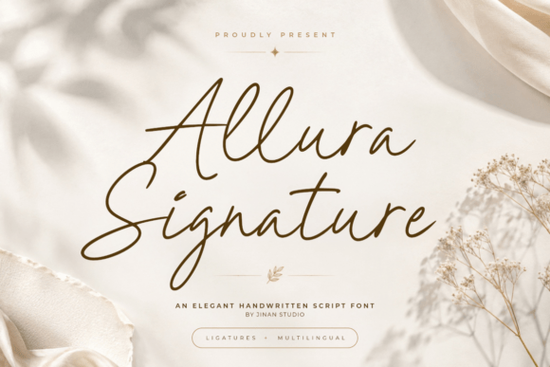
Finding the right script font for a branding project or wedding invitation can be tricky. You want something that looks natural and elegant without being hard to read. Allura Signature Font is a modern elegant handwritten script designed to bring sophistication and a refined hand-lettered feel to logos, packaging, social media graphics, and luxury branding. Its smooth flowing strokes and authentic signature-style details make it a strong choice for designers and small business owners who want polished typography that still feels personal.
What makes a handwritten script font look professional?
A professional script font needs more than just pretty letterforms. It should have consistent stroke weight, clean spacing, and natural connections between letters so the text flows without awkward breaks. Allura Signature Font nails this balance the graceful curves give it an organic handwritten quality, while the clean contemporary finish keeps everything legible at different sizes.
Compared to more casual options like Sweet Apricot, which leans playful and relaxed, Allura Signature sits firmly in the elegant and refined space. That makes it a better fit for projects where you need a polished, upscale tone think luxury brand logos, fashion editorials, or high-end packaging.
Where does this font work best?
This font is versatile enough for a wide range of creative projects. Here are some of the most popular uses:
- Wedding invitations and stationery The flowing script adds a romantic, timeless quality to save-the-dates, RSVP cards, and table settings.
- Logo design Works well for boutique brands, beauty products, photographers, and lifestyle businesses that want a signature-style wordmark.
- Social media templates Clean enough to stay readable at smaller sizes on Instagram, Pinterest, and stories.
- Packaging and labels Adds an artisan, premium feel to product labels, especially in the beauty, skincare, and food space.
- Business cards and stationery A great choice for freelancers and creatives who want their name to stand out.
- Quotes and photography overlays The elegant strokes pair nicely with photography for overlay text on prints or digital content.
How does it compare to other elegant script fonts?
If you're browsing script fonts for your next project, it helps to compare a few options. Aurelia offers a slightly more ornate, decorative style with extended swashes, which works beautifully for invitation suites and editorial layouts. For something with a warmer, more handcrafted feel, Rustic Pantry brings a cozy aesthetic that suits rustic wedding themes and artisan branding.
On the other hand, if you're after something sweeter and more whimsical, Sweetica has a lighter, more playful personality. And Sallintine bridges the gap between casual and formal with its flowing, approachable letterforms a nice middle ground if you don't want something too structured.
Allura Signature stands out for its balance of elegance and readability. It doesn't try to be overly decorative. Instead, it focuses on delivering a clean, sophisticated handwritten look that works across many different design contexts.
Is this font good for print-on-demand products?
Absolutely. If you sell print-on-demand items mugs, tote bags, T-shirts, wall art, greeting cards a versatile script font like Allura Signature can become a core part of your design toolkit. Its clean lines reproduce well on both digital and physical products, and the elegant style appeals to a broad audience looking for premium-quality designs.
One thing to keep in mind: always check the font license for commercial use. The Allura Signature Font on Creative Fabrica comes with a license that covers both personal and commercial projects, which is ideal if you're selling products or working with clients.
Tips for pairing Allura Signature with other fonts
A script font rarely works alone. Pairing it with the right supporting typeface makes your designs look more complete and professional. Here are a few simple pairing ideas:
- Serif fonts A classic serif like Garamond or Playfair Display adds structure and contrast next to the flowing script.
- Clean sans-serifs Fonts like Montserrat or Lato keep things modern and let the script headline stand out.
- Light-weight fonts Thin, minimal typefaces work well for subheadings and body text alongside a bold script.
The key is contrast. If Allura Signature is your hero font, keep the supporting text simple and understated so the script gets the attention it deserves.